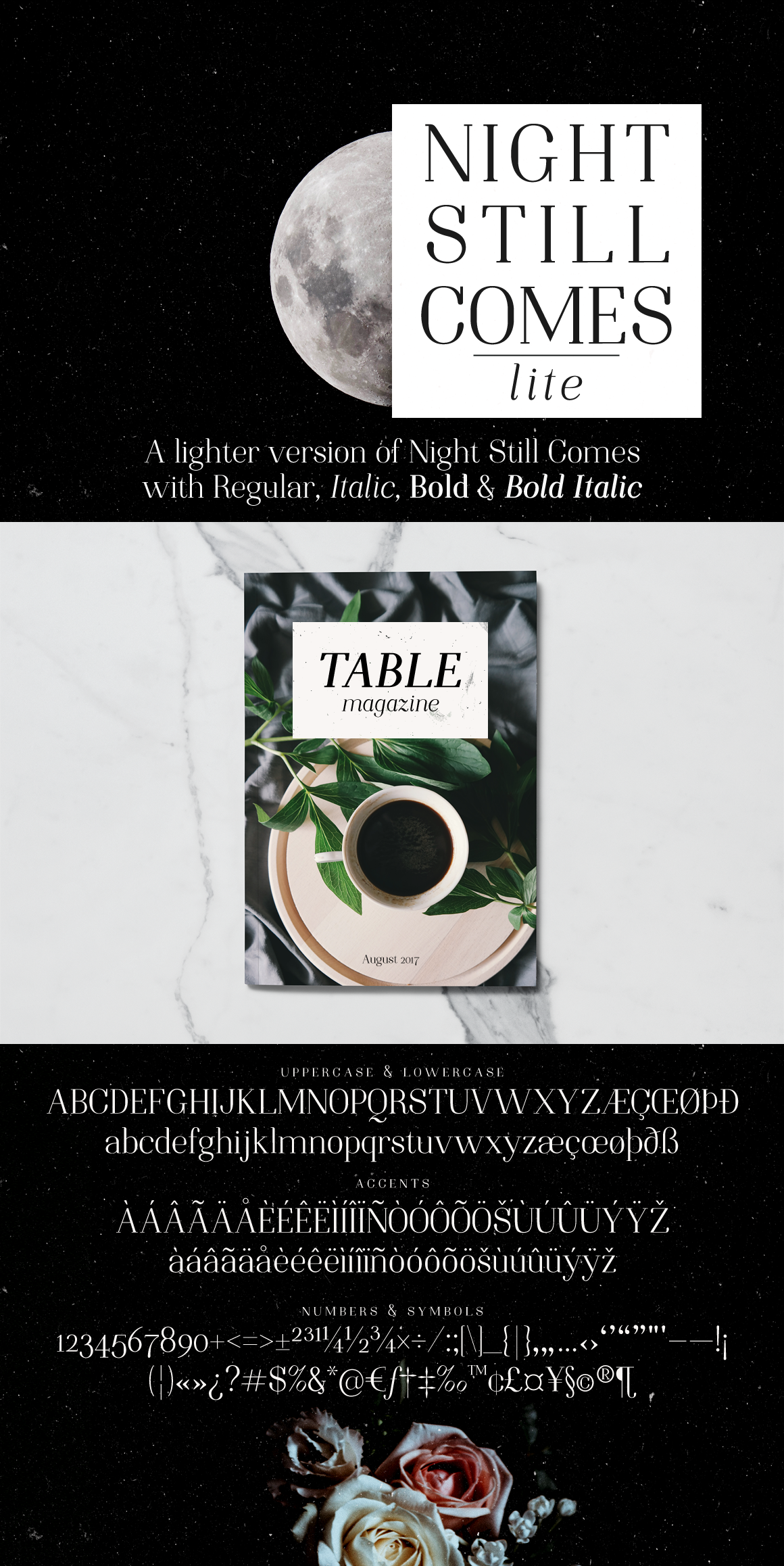
This is a lighter version of Night Still Comes, with 224 glyphs, including:
- Accents
- Symbols and punctuation
- fi & fl ligatures
Night Still Comes is a great font for logos and branding, editorial use, in titles and subtitles, quotes, postcards, invitations, etc. Now available at a special price!